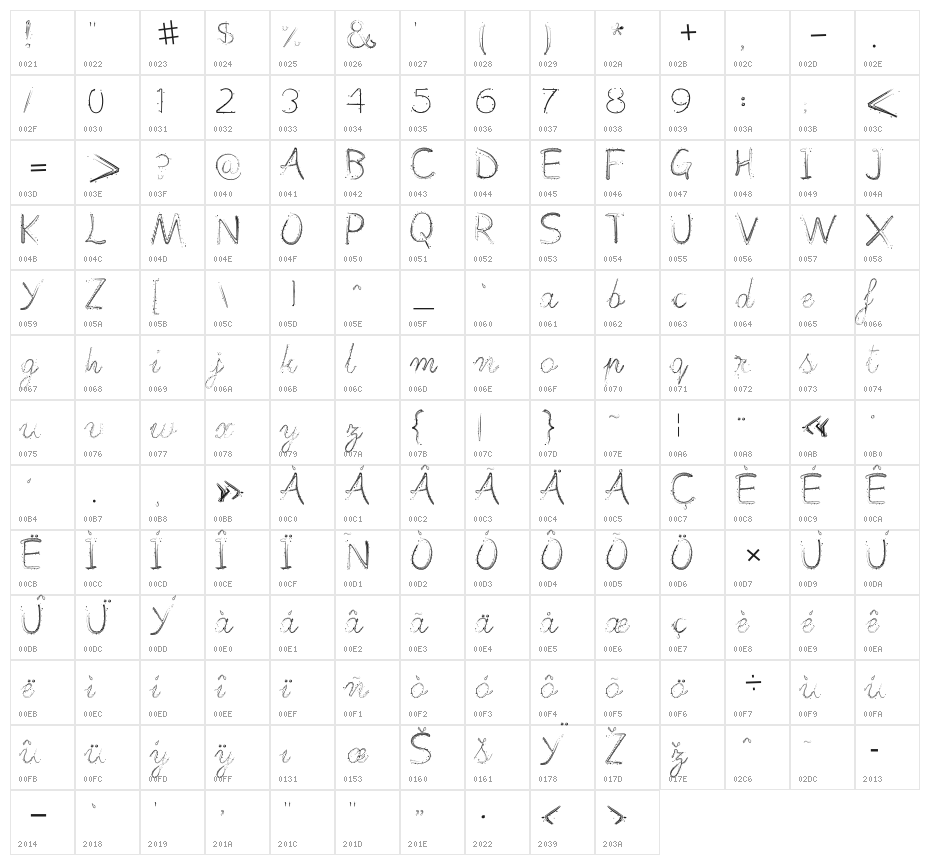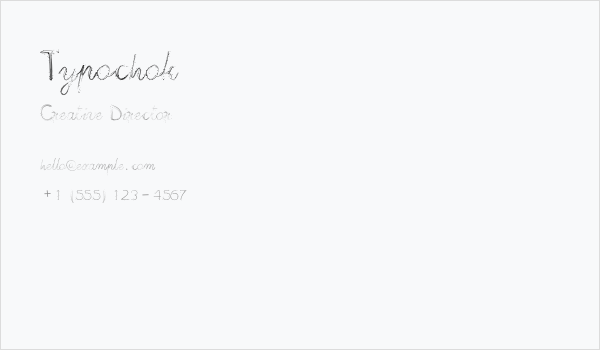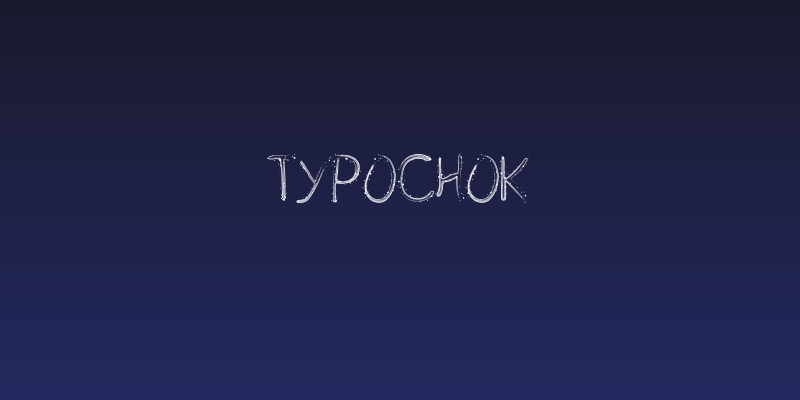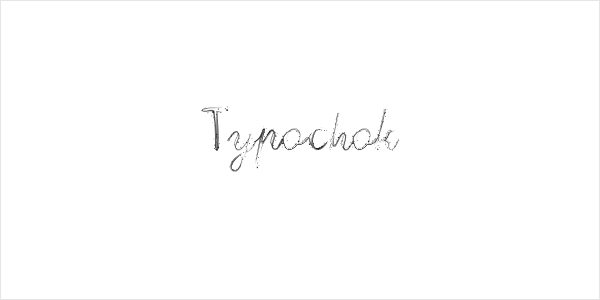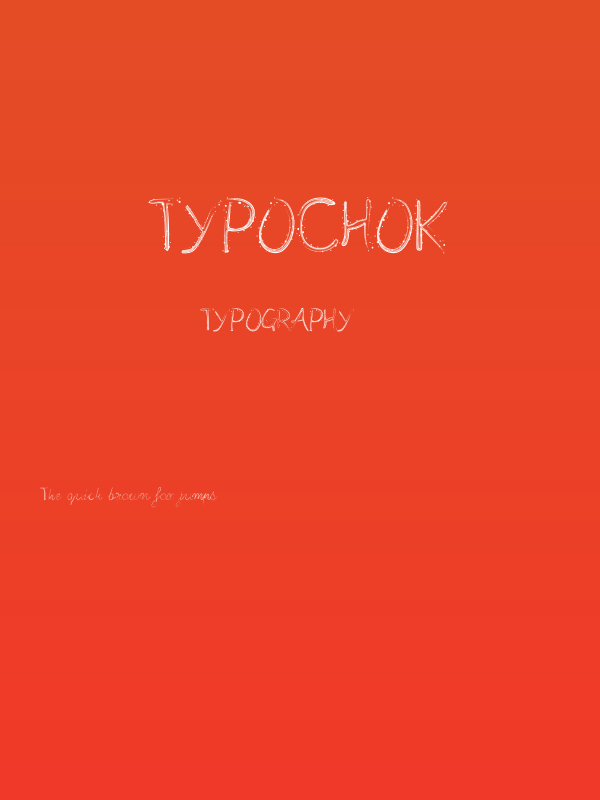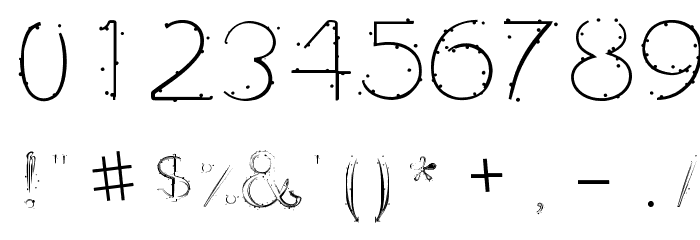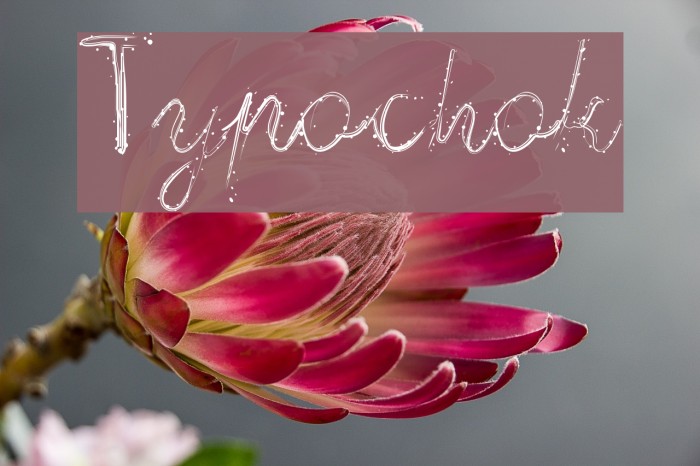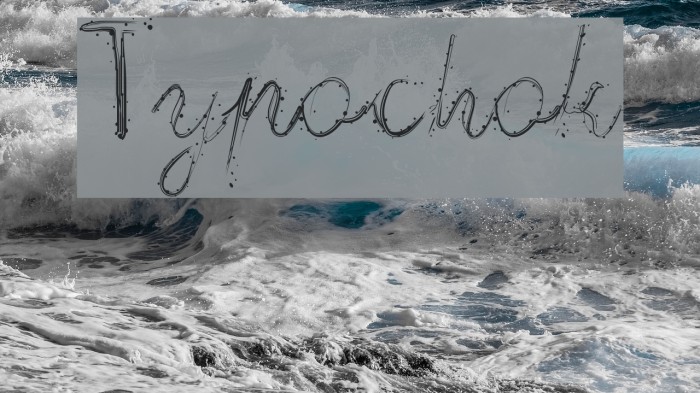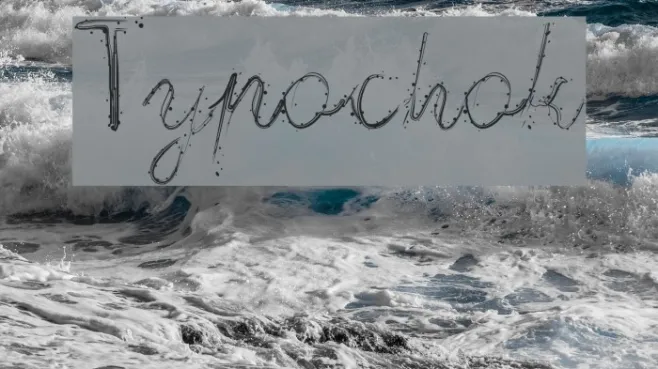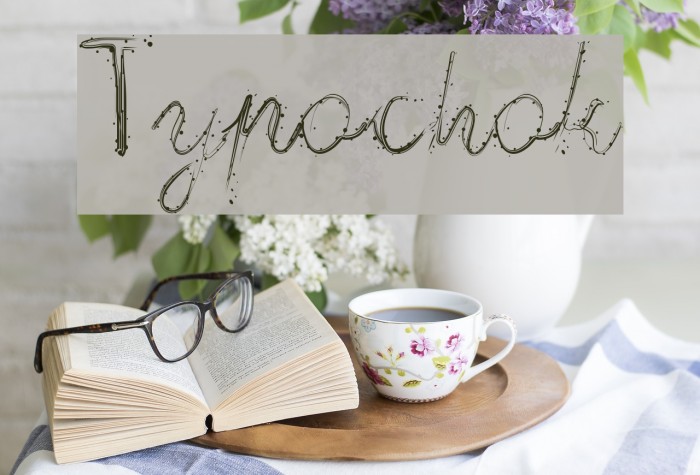
Typochok Font
Typochok Description
This font features a unique, distressed style with a hand-drawn appearance. The uppercase letters are bold and slightly irregular, giving them a rustic and artistic feel. The lowercase letters are more fluid and cursive, adding a touch of elegance and creativity. The numbers maintain the distressed look, consistent with the overall theme. Special characters are also included, each with its own distinct style that complements the rest of the font. The combination of bold and cursive elements makes this font versatile for various design projects.
| Proposed Projects | Ideal for artistic projects, vintage-themed designs, posters, and branding that requires a rustic touch. |